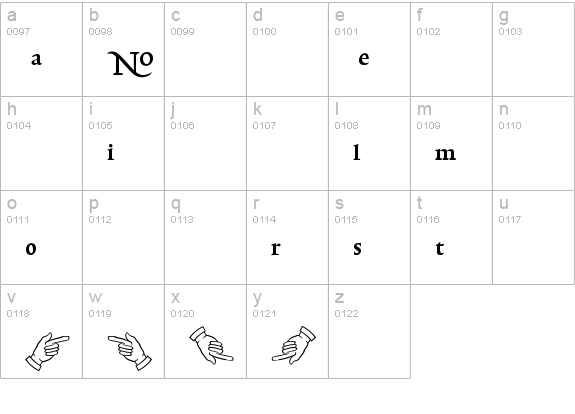
TriniteNo2-MediumCondPi is a stunning font that beautifully combines elegance, sophistication, and readability. This font is perfect for those seeking a modern and refined look for their designs. Its medium condensed style adds a touch of professionalism while maintaining legibility across various mediums. Featuring clean lines and well-balanced proportions, TriniteNo2-MediumCondPi exudes a sense of harmony and versatility. Its carefully crafted letterforms effortlessly blend together, creating a seamless flow that captivates the reader's attention. Whether used for headlines, logos, or body text, this font will undoubtedly make a lasting impression. What sets TriniteNo2-MediumCondPi apart is its unique combination of sharp angles and soft curves. This intriguing contrast adds a touch of dynamism to any project, making it stand out from the crowd. It is a font that effortlessly balances modernity with a timeless appeal, making it suitable for a wide range of design applications. One of the best features of TriniteNo2-MediumCondPi is that it is freely available to download at FontsMarket.com. This means you can elevate your designs without having to worry about any licensing restrictions. It's a font that not only enhances your creativity but also fits seamlessly into your design workflow. In conclusion, TriniteNo2-MediumCondPi is a captivating font that effortlessly combines elegance, sophistication, and legibility. Its medium condensed style, clean lines, and unique letterforms make it a versatile choice for various design projects. Best of all, it is freely available to download at FontsMarket.com, allowing you to enhance your designs without any limitations. So why wait? Download TriniteNo2-MediumCondPi today and elevate your designs to new heights.